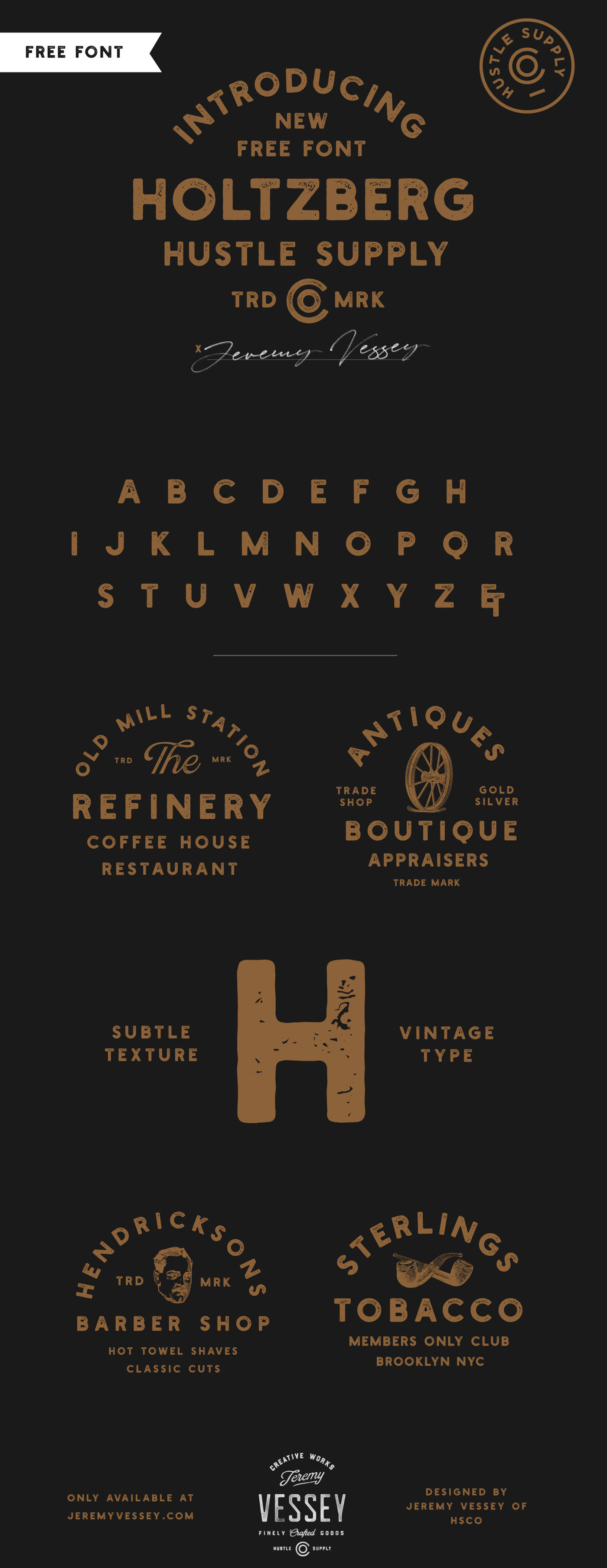
Holtzberg Typeface
Holtzberg is a free vintage font by Hustle Supply Co. Holtzberg is textured with a stamp / letterpress effect that allows for bold aesthetic. This is a great font for vintage logos, restaurants, barbershops, bars, coffee shops, etc.